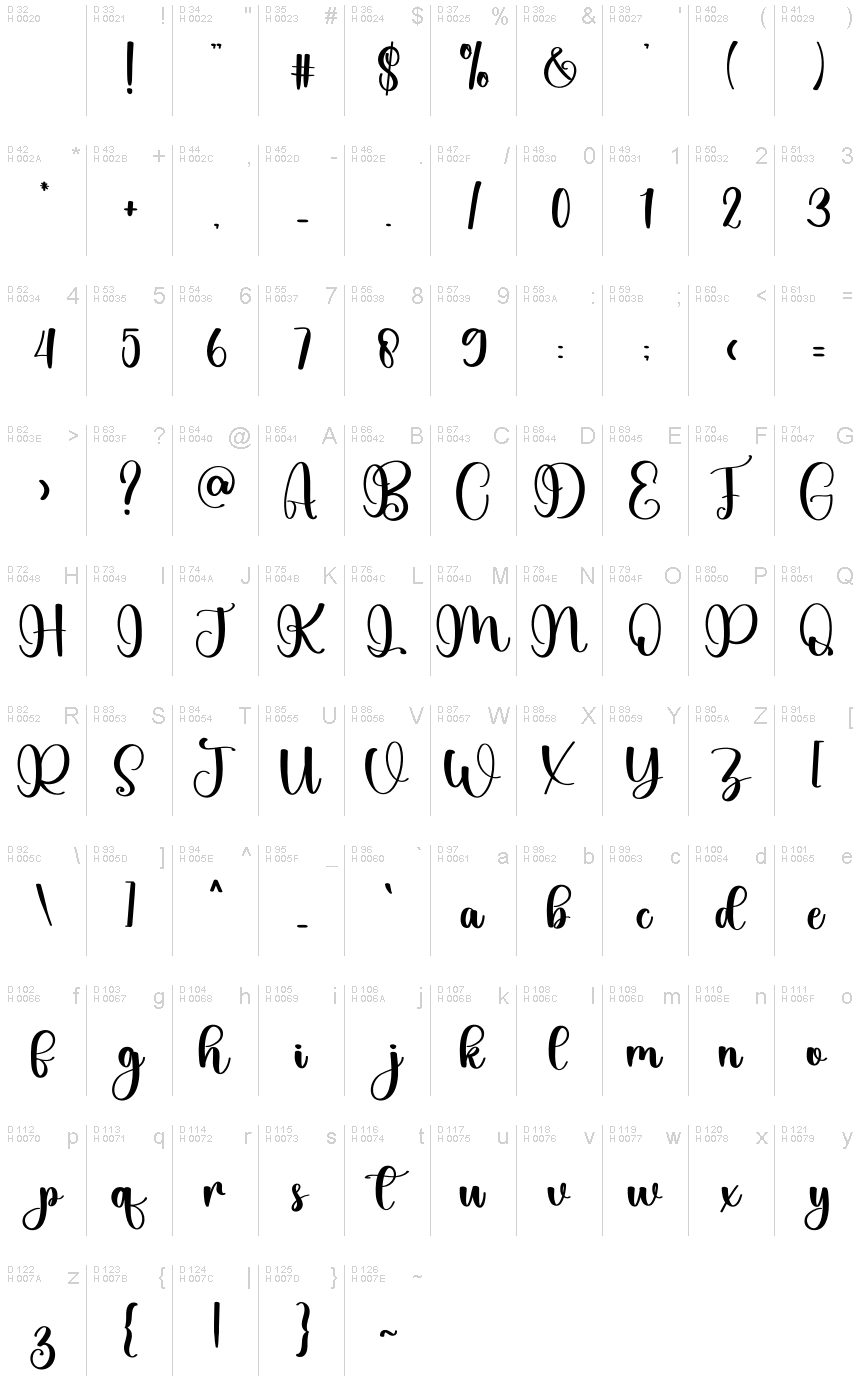
Hall
Hall, designed by Inermedia Studio, brings a touch of personal warmth to the digital realm with its handwritten style. This font exudes charm and personality, featuring fluid strokes that mimic the nuances of handcrafted writing. It balances casual elegance with readability, making it an excellent choice for design projects aiming to convey intimacy and individuality.
The aesthetic appeal of Hall lies in its approachable and friendly character, which can complement a variety of creative endeavors from wedding invitations to branding materials. Its curves are reminiscent of traditional calligraphy while maintaining the simplicity necessary for versatile application across both print and digital platforms.
Embrace the distinctive flair of Hall for projects that require a human touch with a modern twist. Whether you're crafting heartfelt greetings or establishing an approachable brand identity, this font's style is poised to leave a lasting impression.
The aesthetic appeal of Hall lies in its approachable and friendly character, which can complement a variety of creative endeavors from wedding invitations to branding materials. Its curves are reminiscent of traditional calligraphy while maintaining the simplicity necessary for versatile application across both print and digital platforms.
Embrace the distinctive flair of Hall for projects that require a human touch with a modern twist. Whether you're crafting heartfelt greetings or establishing an approachable brand identity, this font's style is poised to leave a lasting impression.